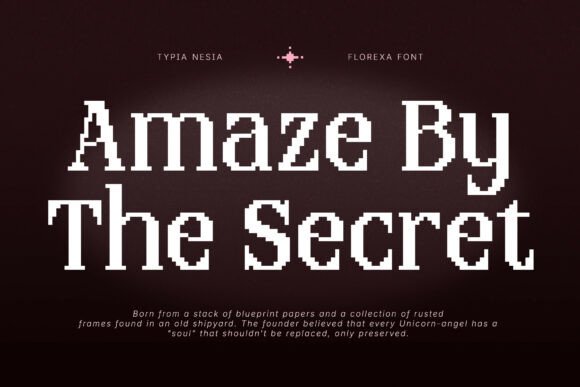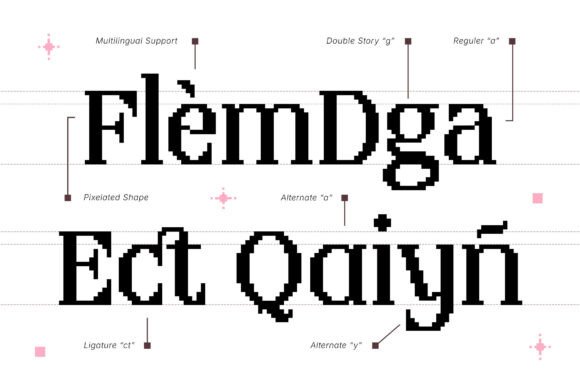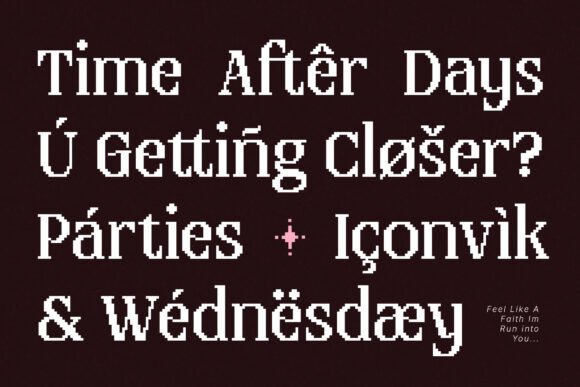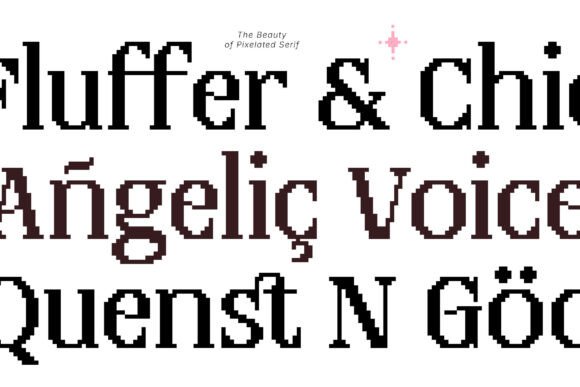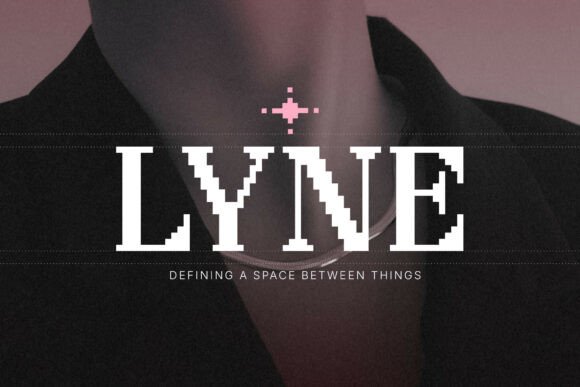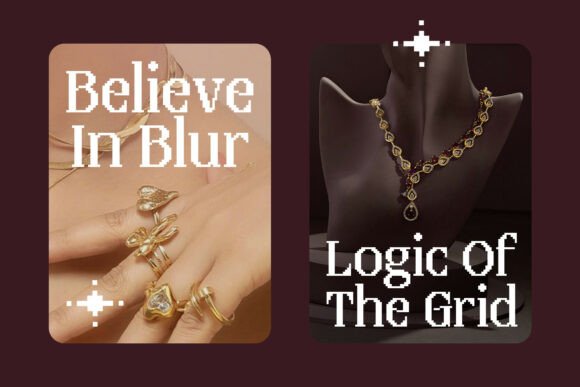
Introducing Florexa Font: The Epitome of Modern Elegance and Luxury
In the realm of typography, few fonts manage to strike a balance between classic luxury and modern digital charm. Florexa Font is one such exceptional typeface that seamlessly blends refined serif details with subtle pixel-inspired forms, making it a standout in the world of design. Whether you’re a designer, craftsperson, or simply a connoisseur of fine typography, Florexa is poised to elevate your creative projects to new heights of elegance and sophistication.
The Essence of Florexa: A Modern Elegant Pixel Serif Font
Florexa is not just a font; it’s an experience. It’s a modern elegant pixel serif font that captures the essence of luxury and beauty, making it perfect for a wide array of applications, from branding and packaging to advertising, logos, posters, perfume labels, web design, game visuals, and premium product presentations. The unique blend of classic serif curves and pixel-inspired details gives Florexa a fresh, contemporary feel that works harmoniously across both classic and modern creative projects.
Design Characteristics: A Perfect Blend of Classic and Modern
The design of Florexa is characterized by its refined serif details, which evoke a sense of classic luxury and timeless elegance. These serifs are meticulously crafted to add a touch of sophistication to any text, making it ideal for high-end branding and luxury product packaging. On the other hand, the subtle pixel-inspired forms infused in the font bring a modern, digital charm that appeals to the tech-savvy audience and fits perfectly with contemporary design trends.
One of the standout features of Florexa is its versatility. This font is not limited to a specific style or medium; rather, it’s designed to adapt and shine across various platforms and applications. Here are a few examples of how Florexa can be utilized:
• Branding: Create a lasting first impression with elegant and modern logos that speak luxury.
• Packaging: Elevate your product packaging with a sophisticated look that stands out on the shelves.
• Advertising: Engage your audience with high-end ad designs that exude luxury and class.
• Logos: Design memorable and impactful logos that reflect the luxury and elegance of your brand.
• Posters: Create visually stunning posters that capture attention and convey your message in style.
• Perfume Labels: Add a touch of elegance and sophistication to your perfume labels, making them truly irresistible.
• Web Design: Enhance your website’s aesthetic appeal with a font that combines modernity and luxury.
• Game Visuals: Bring a touch of luxury and sophistication to your game visuals, setting them apart in the gaming world.
• Premium Product Presentations: Showcase your premium products in the best possible light with elegant and modern presentations.
Why Choose Florexa?
Choosing Florexa for your design projects comes with numerous benefits. Here are a few reasons why Florexa stands out:
• Unique Aesthetic: Florexa offers a unique blend of classic luxury and modern digital charm, making your designs stand out.
• High Versatility: The font’s adaptability makes it suitable for a wide range of applications and mediums.
• Elegance and Sophistication: Florexa brings an unparalleled level of elegance and sophistication to your designs, perfect for luxury brands and high-end products.
• Contemporary Feel: The subtle pixel-inspired details give Florexa a fresh, contemporary feel that appeals to modern audiences.
Author Typia Nesia
Florexa Font is a game-changer in the world of typography, offering a perfect blend of modern elegance and luxury. Its unique design characteristics, versatility, and the ability to convey a sense of high-end quality make it an excellent choice for designers and craftspersons looking to elevate their creative projects. Whether you’re aiming to create elegant digital luxury or simply looking for a font that combines beauty, elegance, and modern technology, Florexa is the ultimate solution. Embrace the power of Florexa and transform your designs with a touch of modern elegance and luxury.